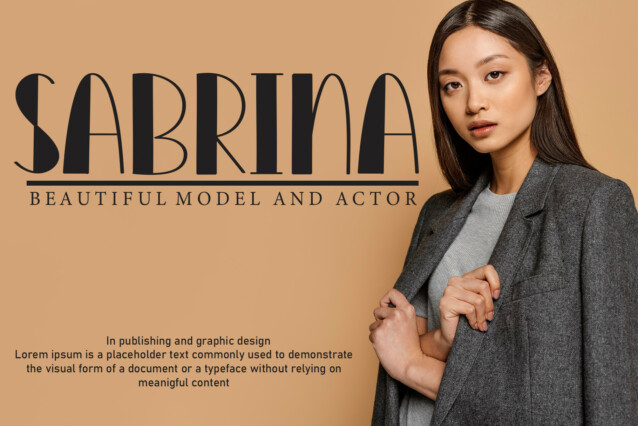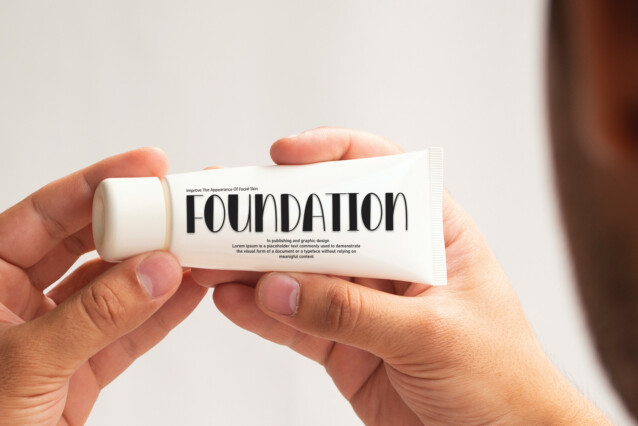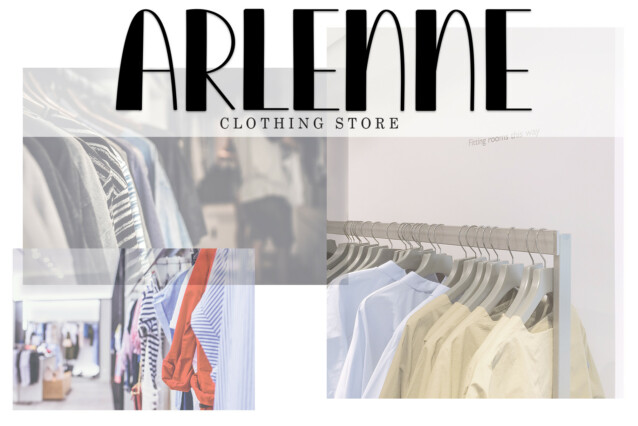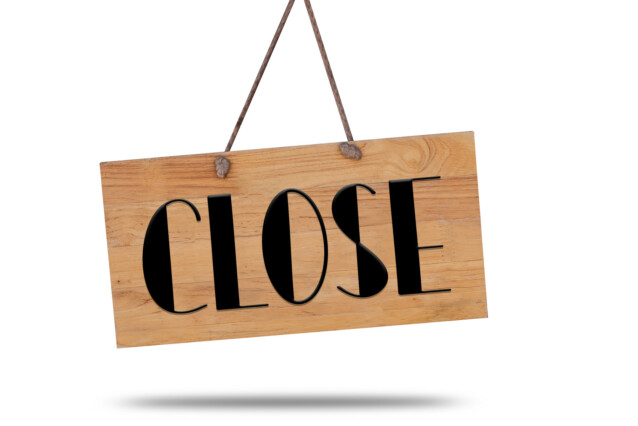
Autogram Display Font
Autogram Display Font is a sweet and friendly handwritten display font. Cute and fun, this font is ideal for writing wedding invitations, cards, or any other design that might need a playful touch!